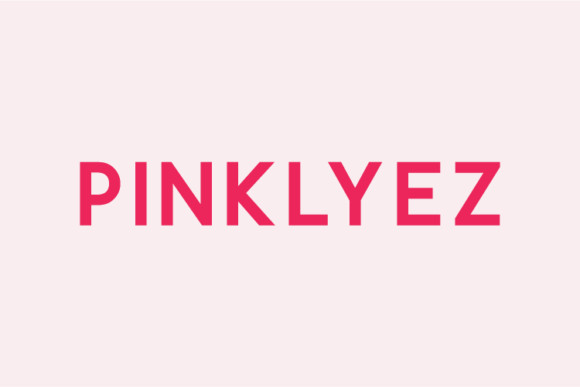
Welcome to the world of Pinklyez, a captivating all-caps sans serif font that will ignite your creativity and leave a lasting impression on your audience. Prepare to be mesmerized as you explore the endless possibilities that await you within this remarkable font family.
Meet Pinklyez, the ultimate choice for wall quotes. Every character is meticulously crafted to deliver a sense of sophistication and elegance that will transform your words into stunning visual masterpieces. Let your creativity soar and watch as your walls come alive with a symphony of typography.
Born from the imagination of Huntype, Pinklyez is not just a font; it's an artistic expression that speaks to your soul. Whether you're designing a logo, creating a brand identity, or crafting captivating web headings, Pinklyez will elevate your designs to new heights of beauty and allure.
With its smooth, clean lines and a touch of exquisite contrast, Pinklyez effortlessly blends functionality with aesthetics. It's a font that breathes life into your words, making them leap off the page and dance before your eyes.
Dare to be different. Choose Pinklyez and embark on a typographic journey like no other. Let your creativity flourish and leave your audience spellbound with every design you create. Discover the limitless potential that awaits you with Pinklyez today!